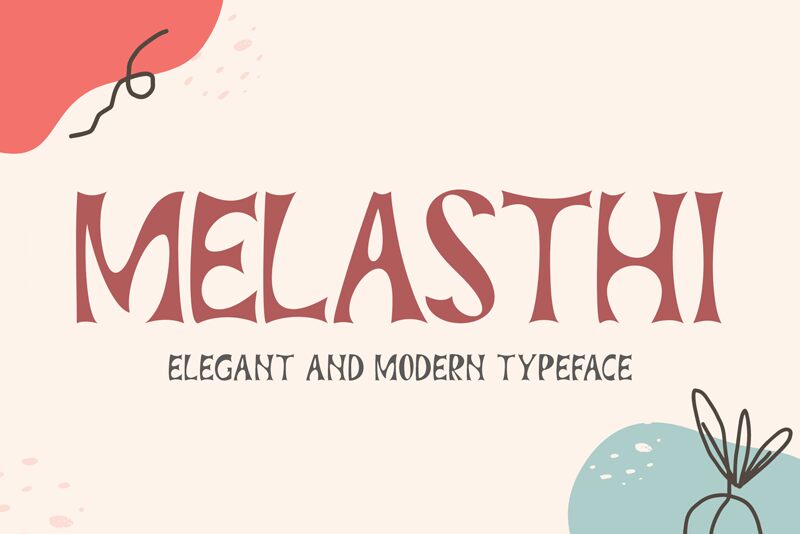
Melasthi font by Yoga Letter is a fancy display free font that surprises every character upon its appearance thanks to unusual touches and a clear overall flow. The artist’s input is just as important as the viewer’s, and with Melasthi, the conversation of art comes from both, allowing everyone to thoroughly enjoy their use.
Get creative and bring Melasthi to branding designs, ads, posters and flyers, packaging, and magazines that hold a fun keynote surely to intrigue young readers, actively counting on the influence of the font.